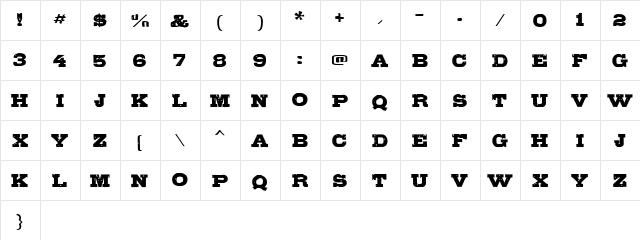
Gipsiero Regular
Design Context for Gipsiero Typeface
Gipsiero is a composed and adaptable typeface that performs quietly and consistently across a wide range of design contexts.